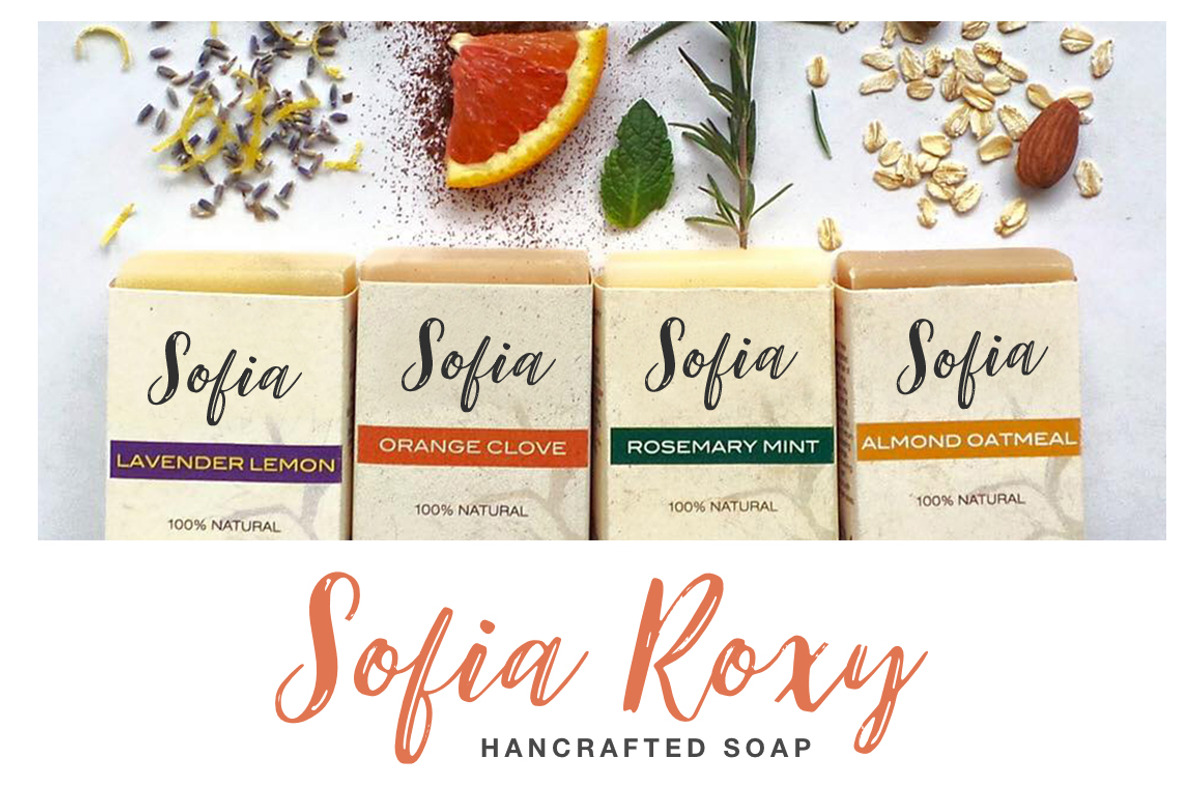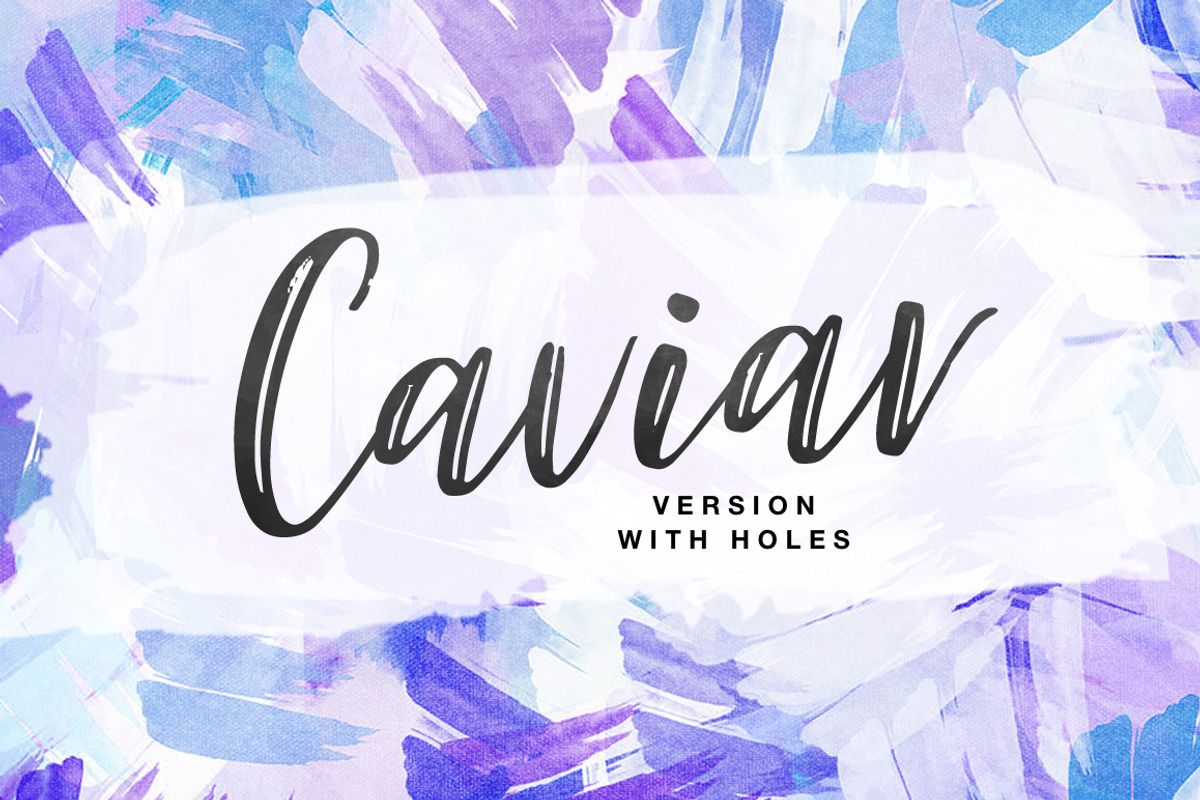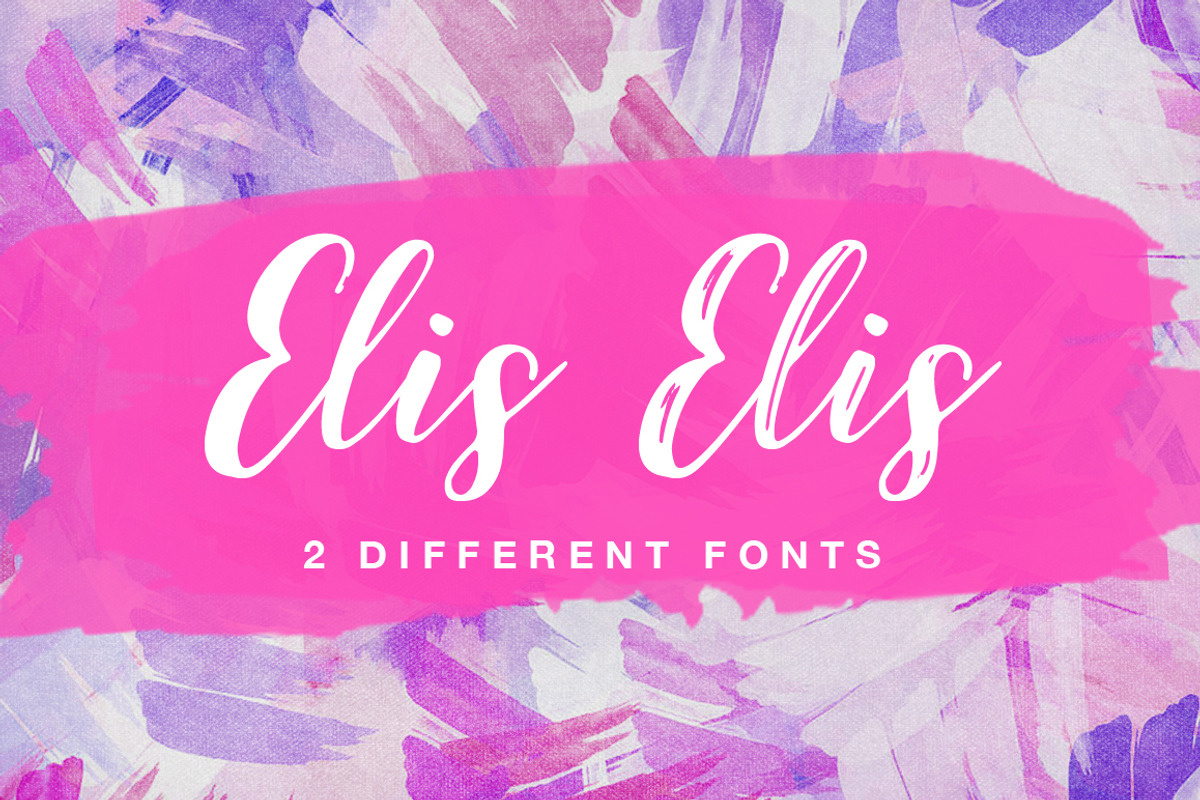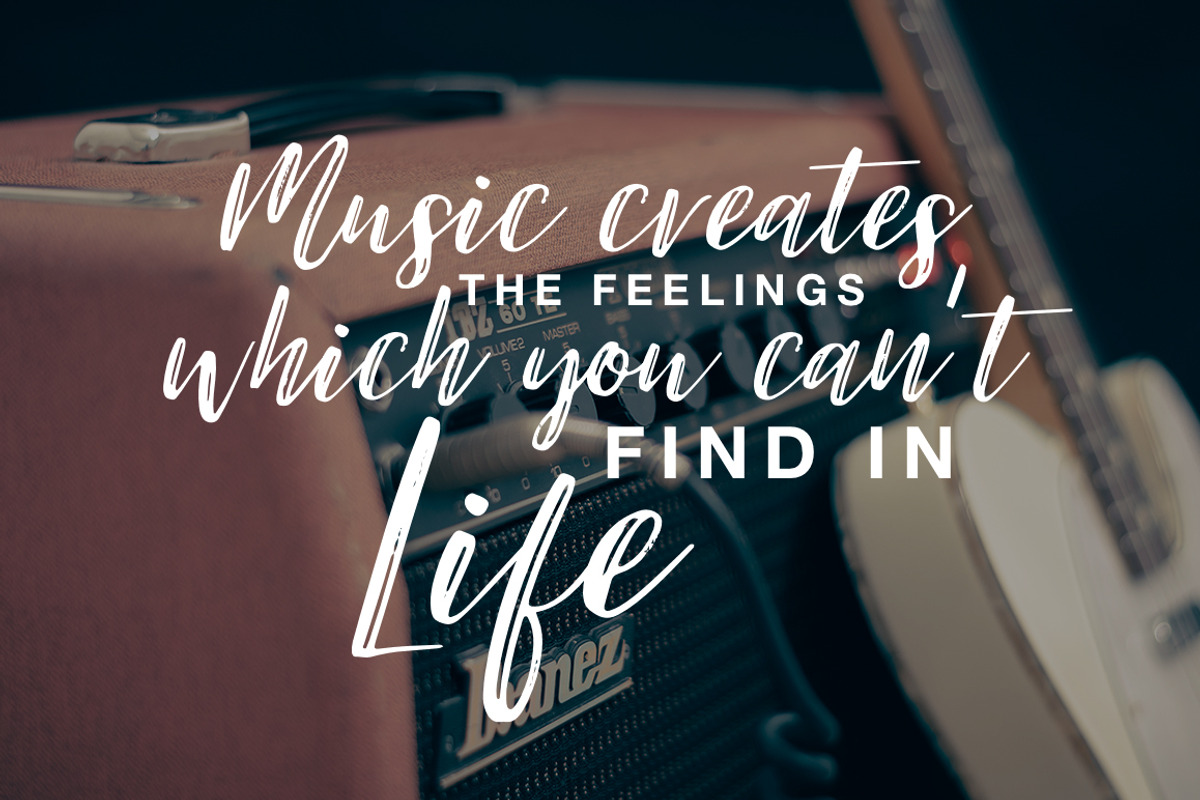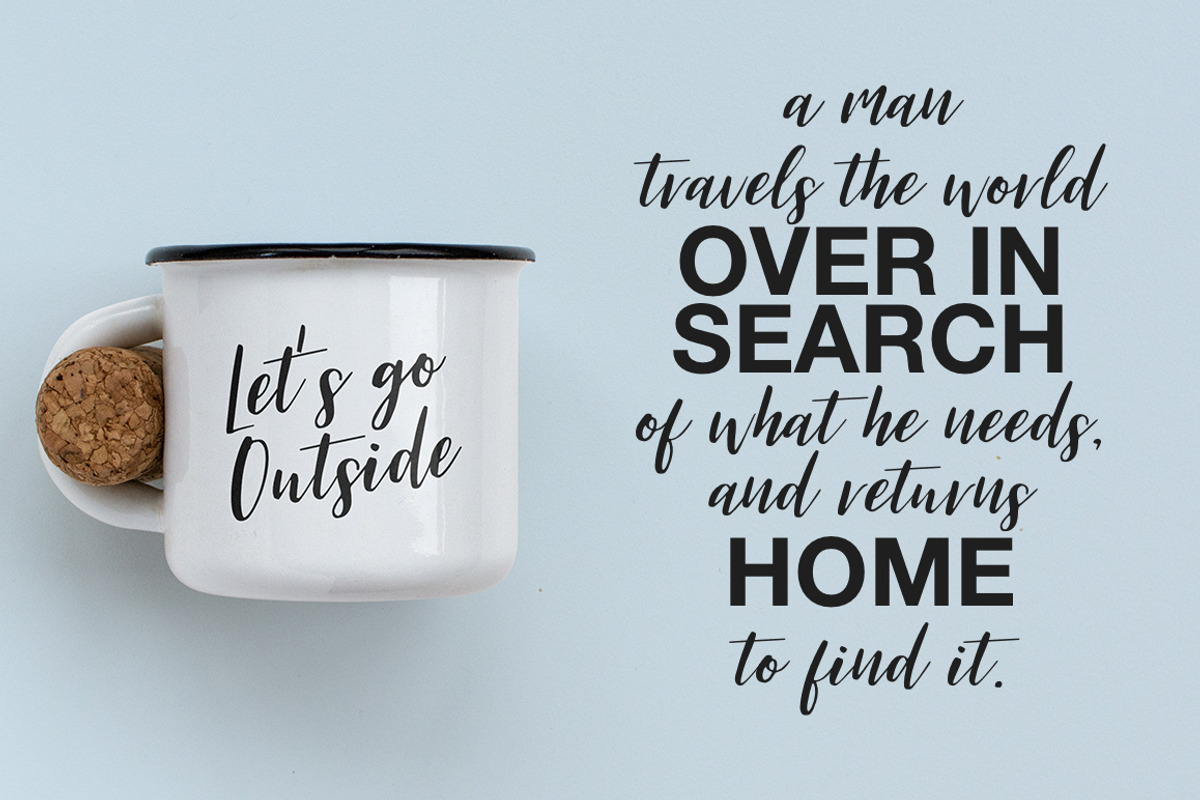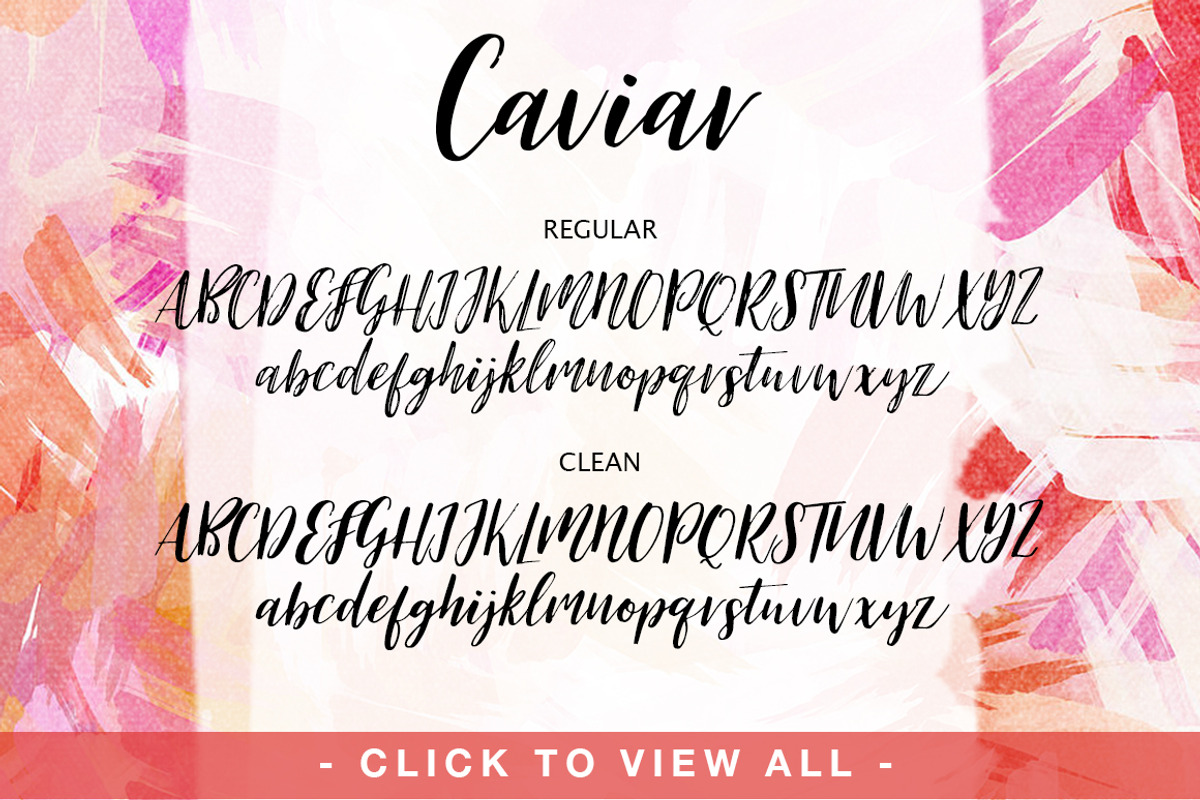
Caviar DUO font
Caviar DUO font by supfonts is a font selected for branding, posters, packaging, typography.
Why Caviar DUO font is worth a look
Caviar DUO font by supfonts fits naturally into Branding, posters, packaging, typography.